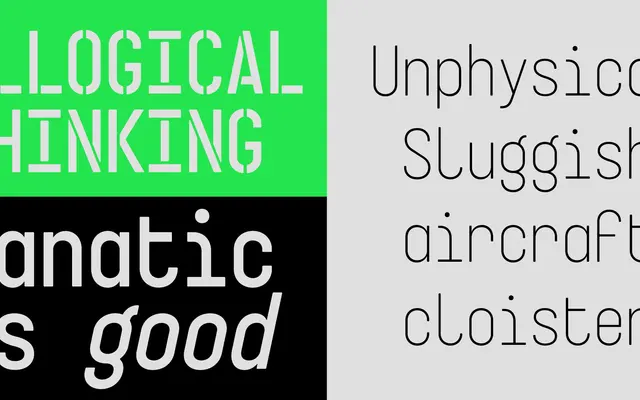
Targa Pro
Zetafonts · Cosimo Lorenzo Pancini, Francesco Canovaro, Mario de Libero · 2003
A geometric sans originally drawn from Italian licence plate lettering, rebuilt twenty years on into a full multi-weight family with both monospaced and proportional subfamilies.
First released in 2003 as Zetafonts' debut typeface, Targa Pro was substantially redesigned by Francesco Canovaro with the original's condensed, slightly rounded geometry preserved but resolved into a more consistent five-weight system. The family splits into Targa Pro Mono and Targa Pro Roman, joined by a stencil and a handdrawn variant for display use. Variable font support is included in the full family package, and the character set covers 213 languages across 673 glyphs.
A geometric, condensed sans-serif with slightly rounded corners derived from Italian licence plate lettering; the family includes both monospaced and proportional subfamilies as well as stencil and handmade variants.